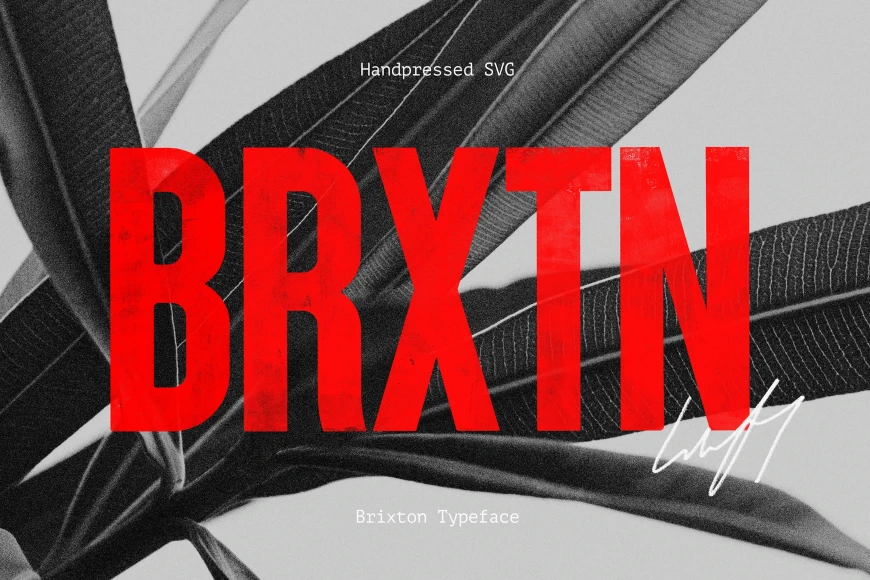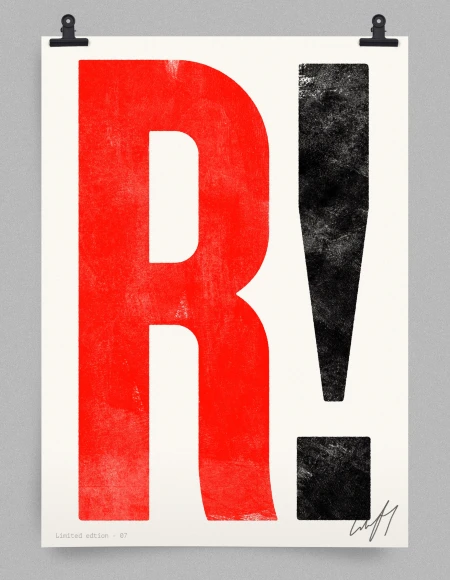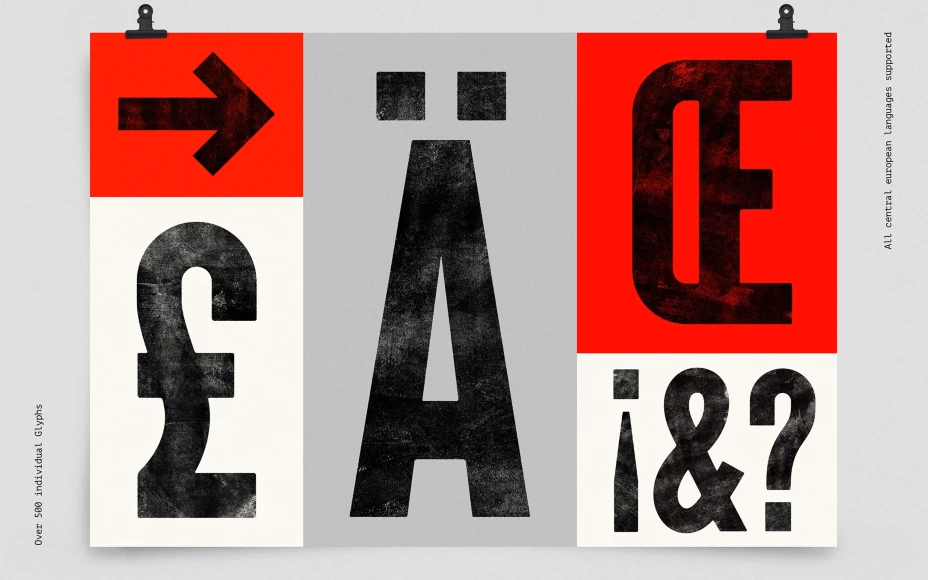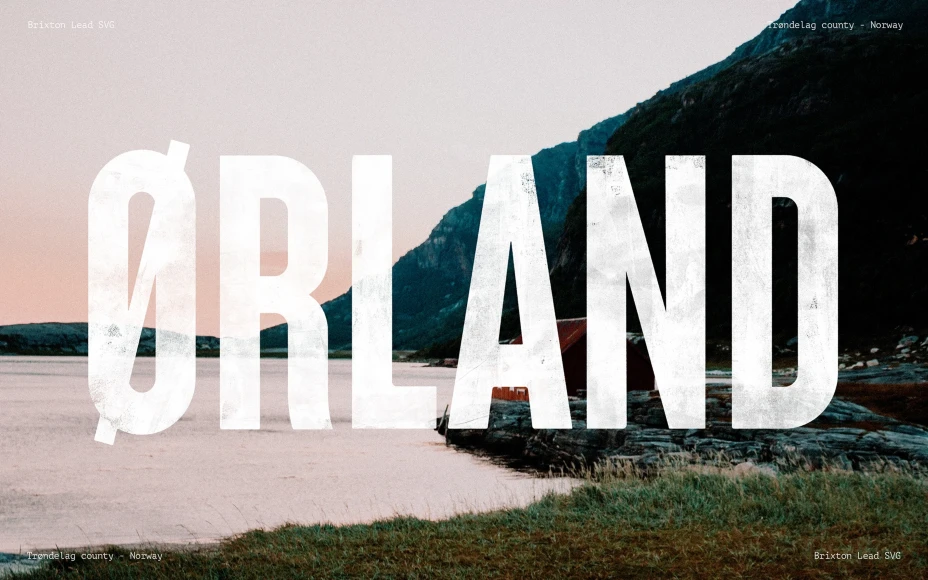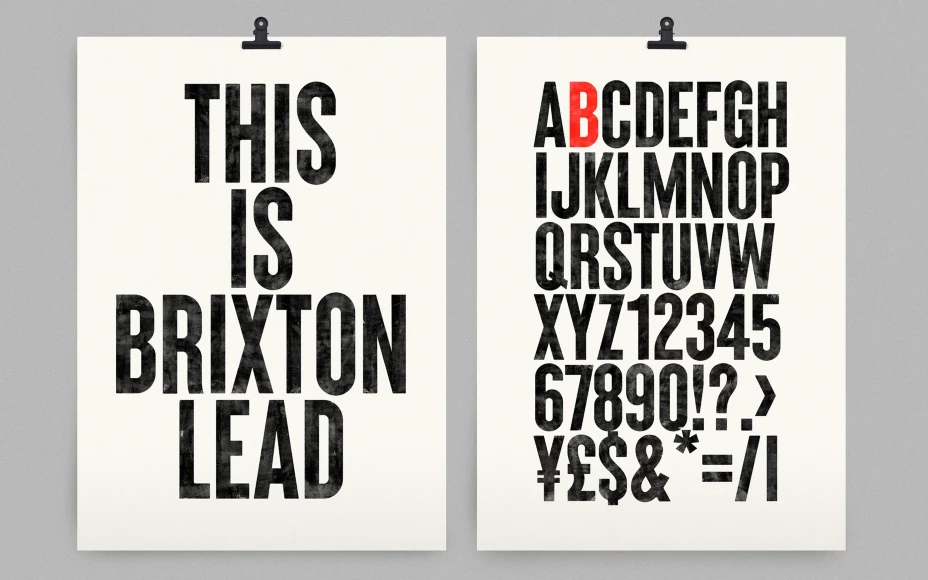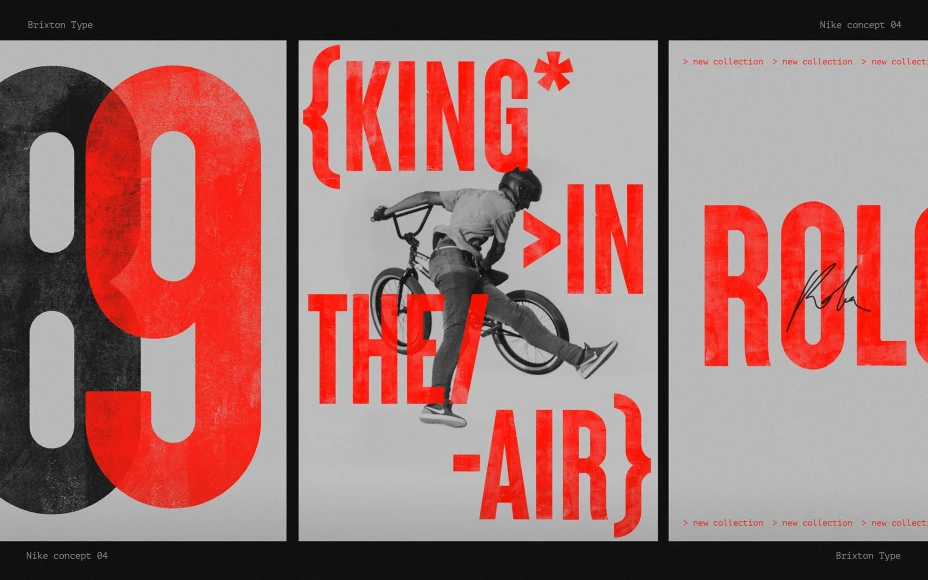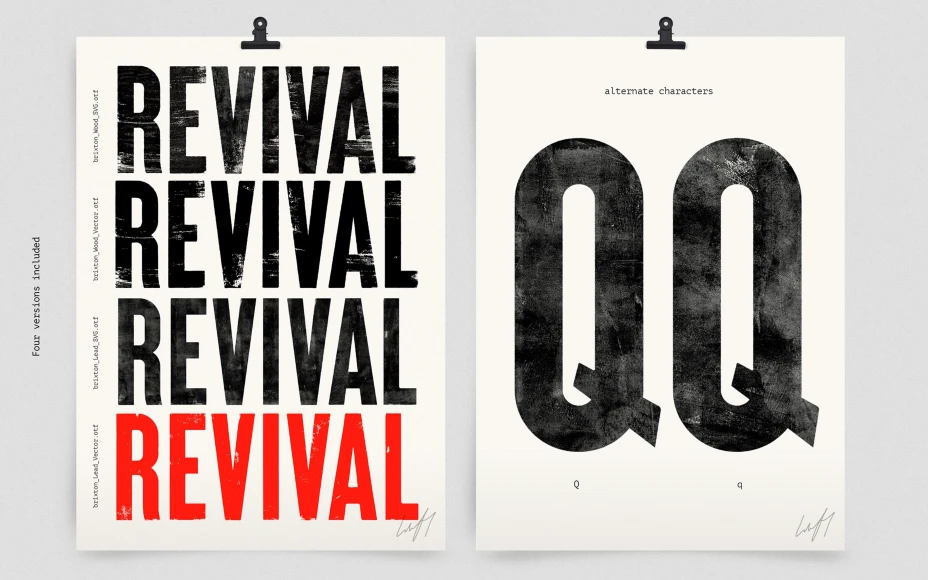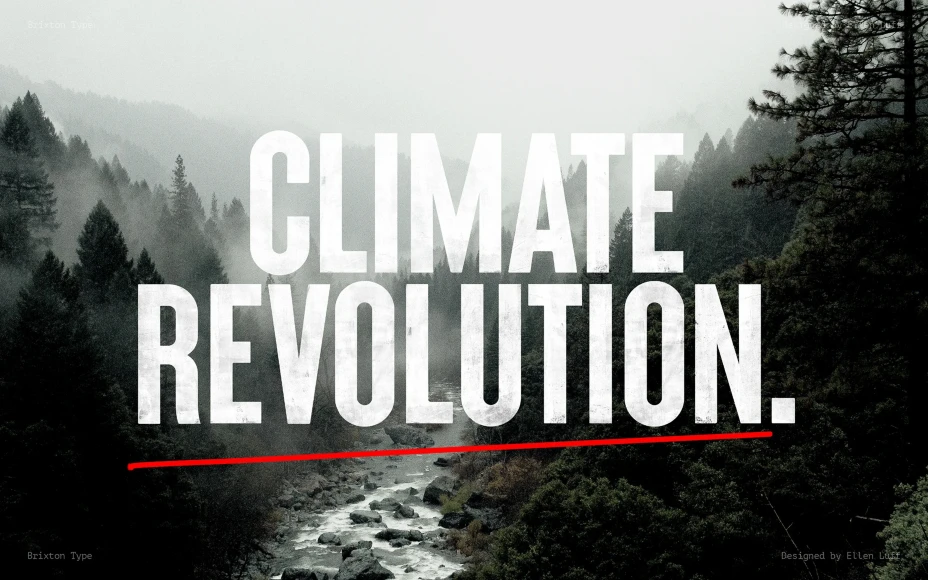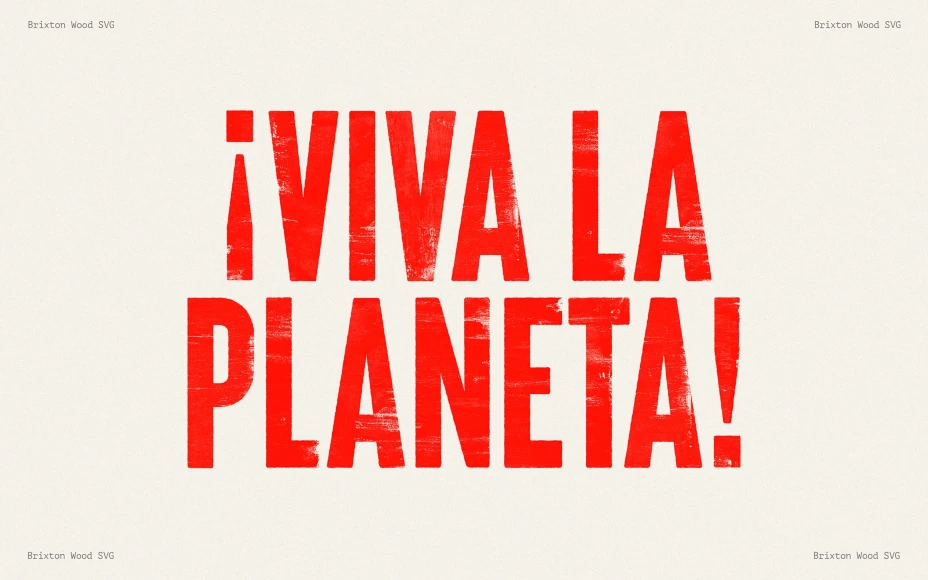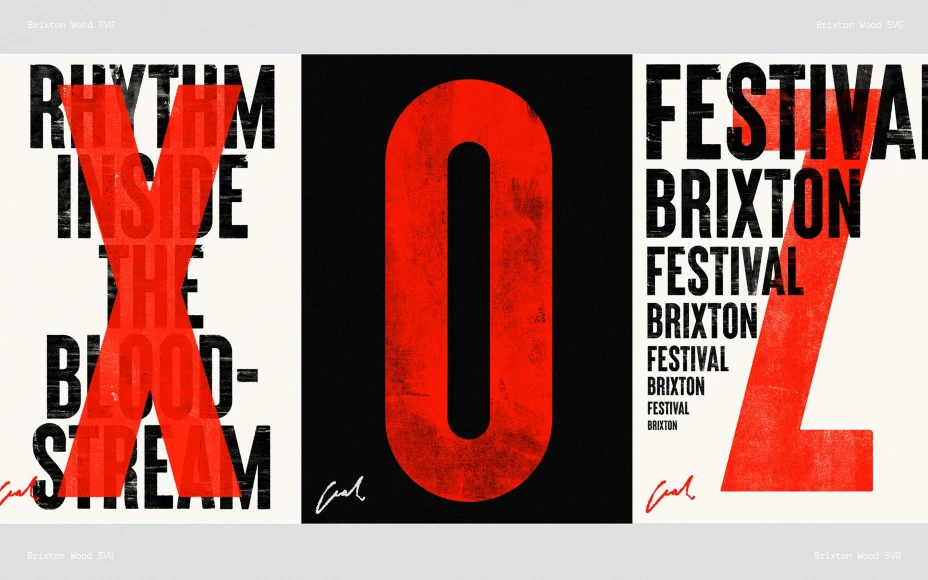
Brixton
By Ellen Luff
Brixton Lead
Brixton Wood
Brixton, from Ellen Luff Type Foundry, is a bold hand-printed sans serif that celebrates the original letterpress style with all its beautiful imperfections. Its narrow, powerful shapes add weight to any design, whilst the textures give it an authentic voice. This all-caps gothic family, ideal for impactful branding and editorial projects, features three distinct styles: Brixton Clean for crisp, sharp designs, Brixton Wood with the raw texture of aged wood, and Brixton Lead, carrying the rugged character of weathered metal.